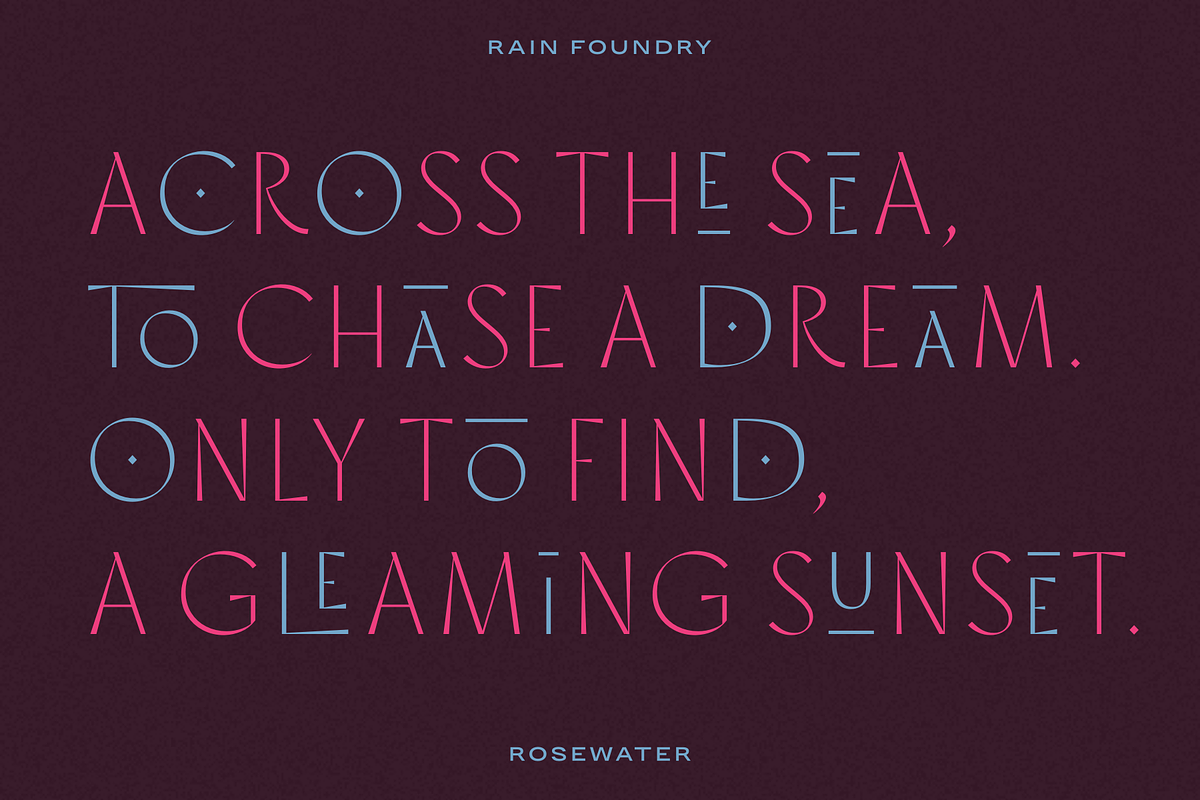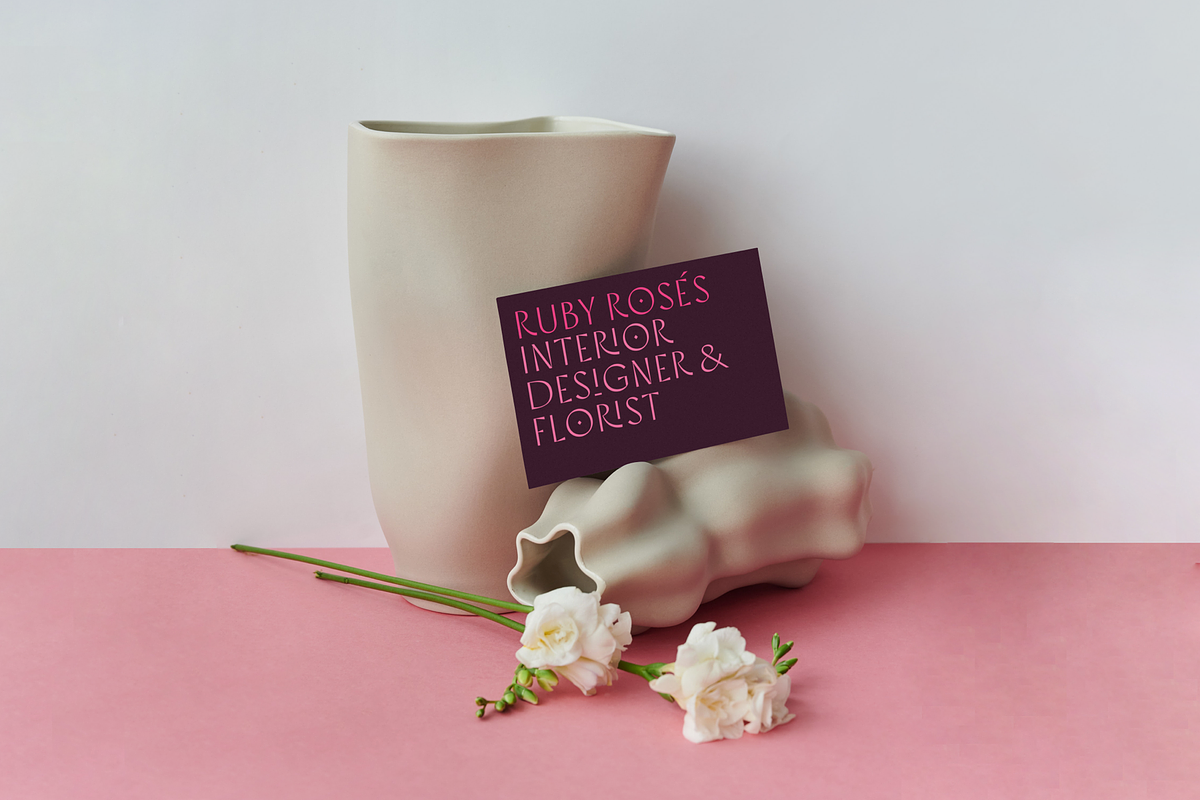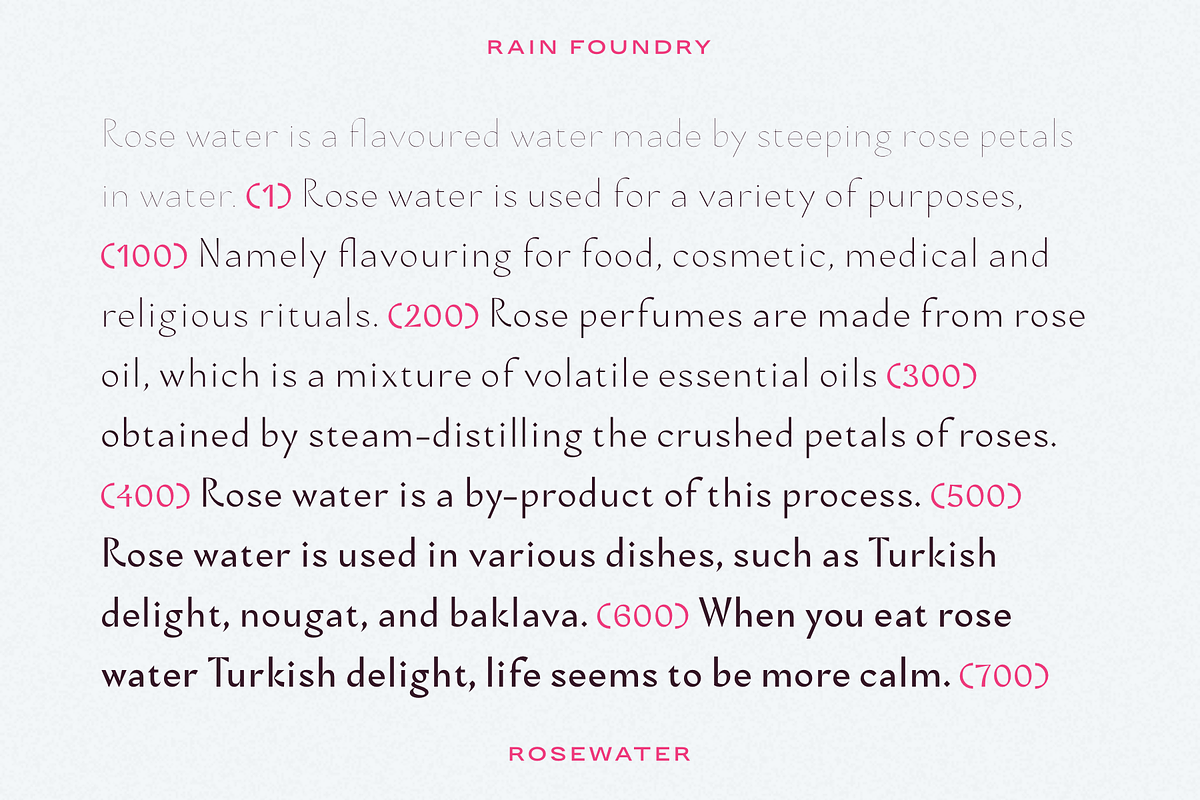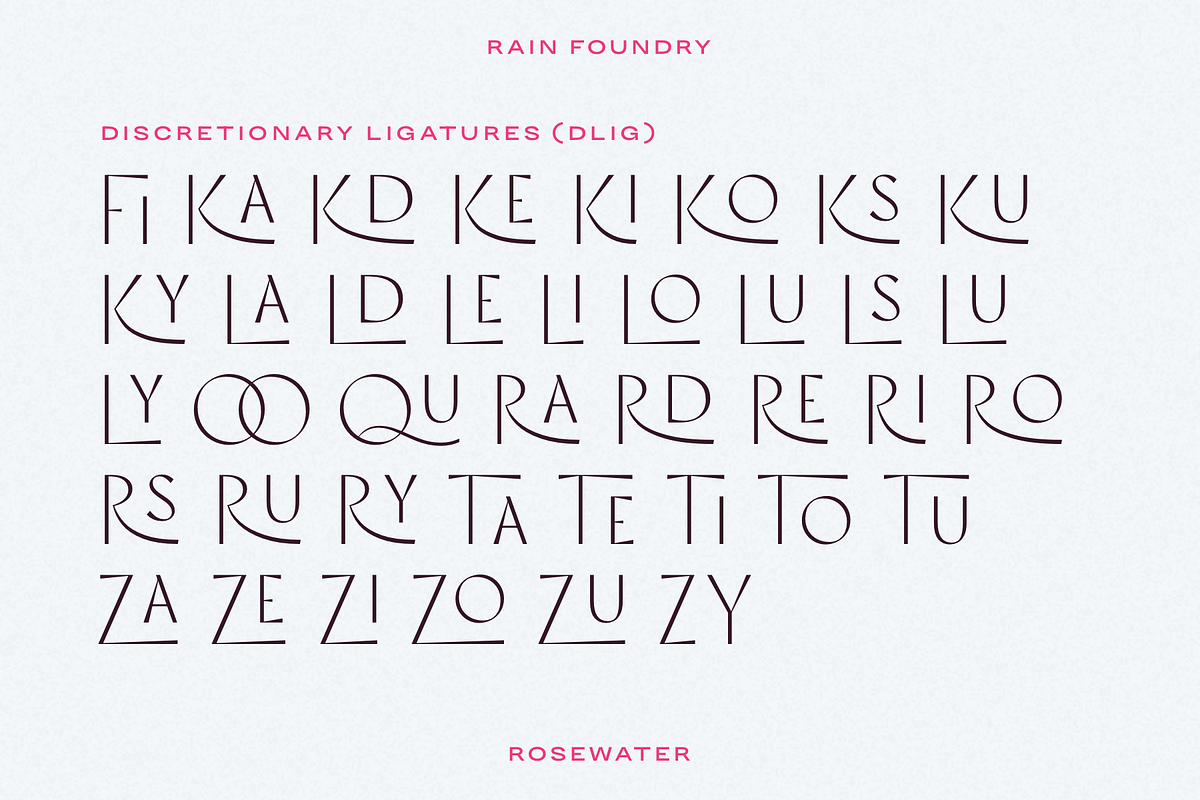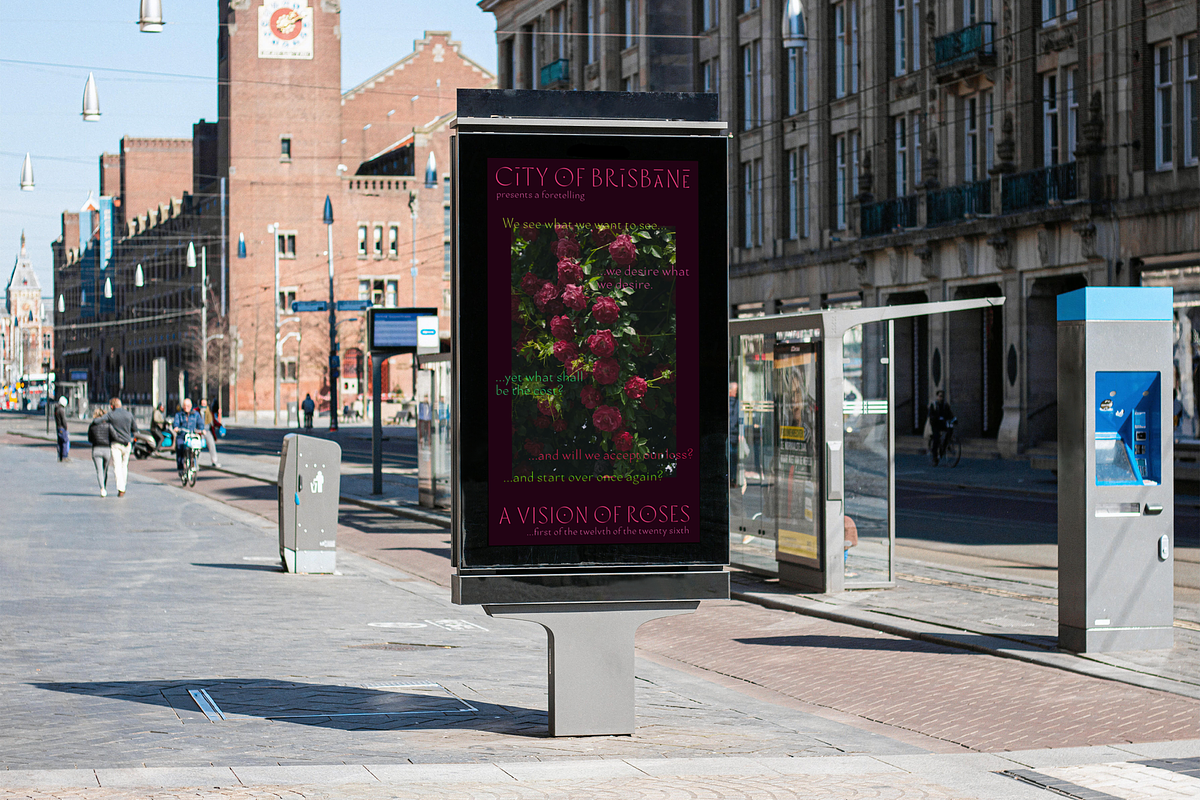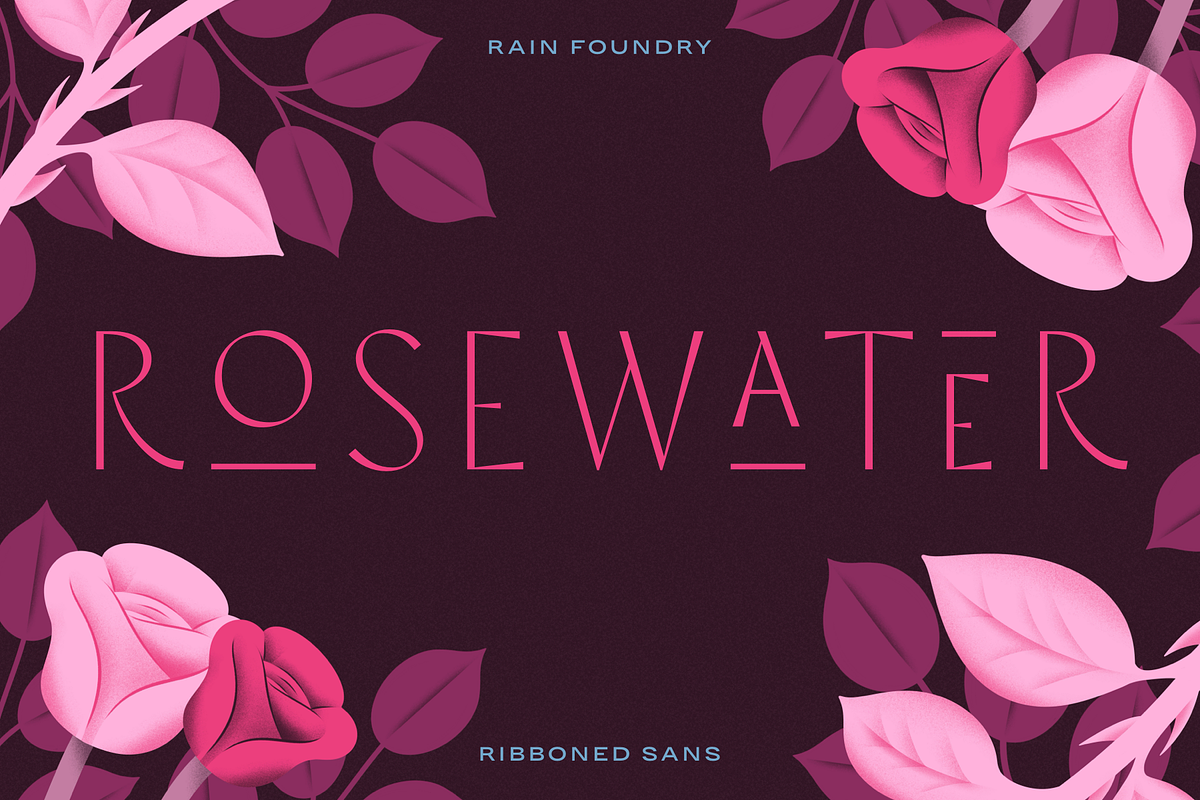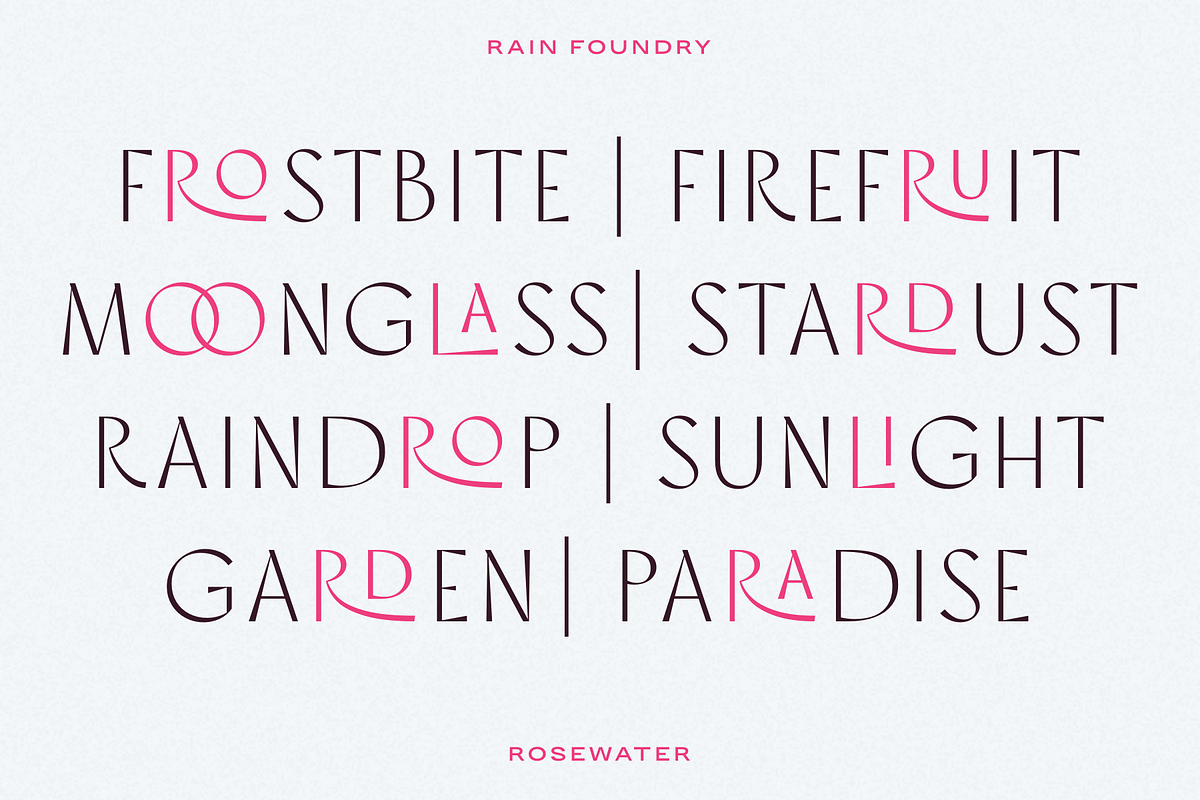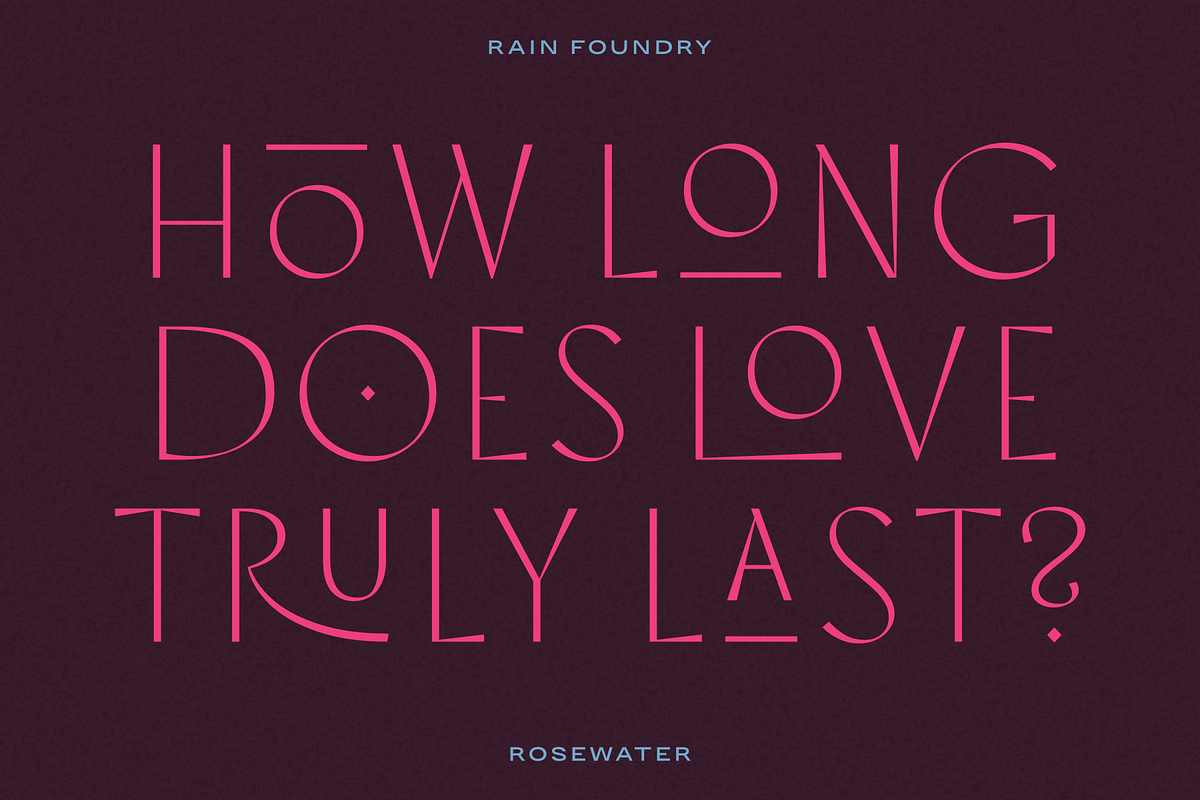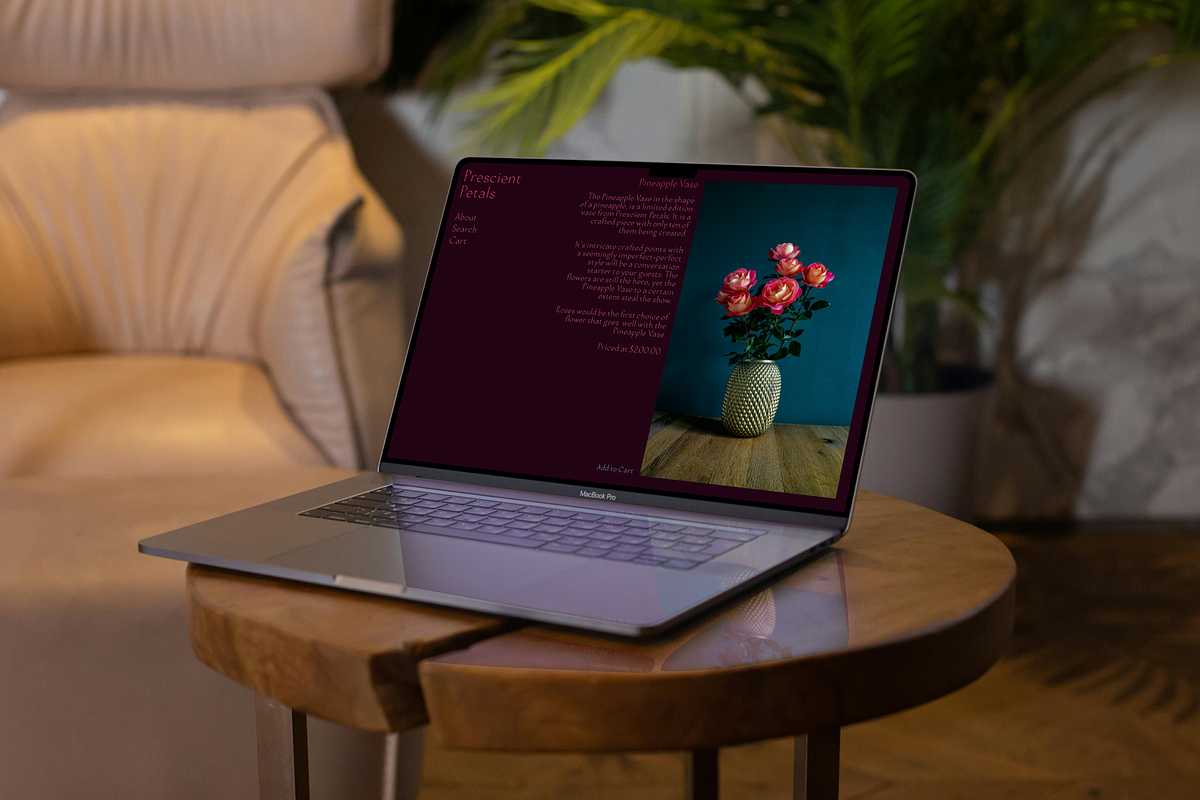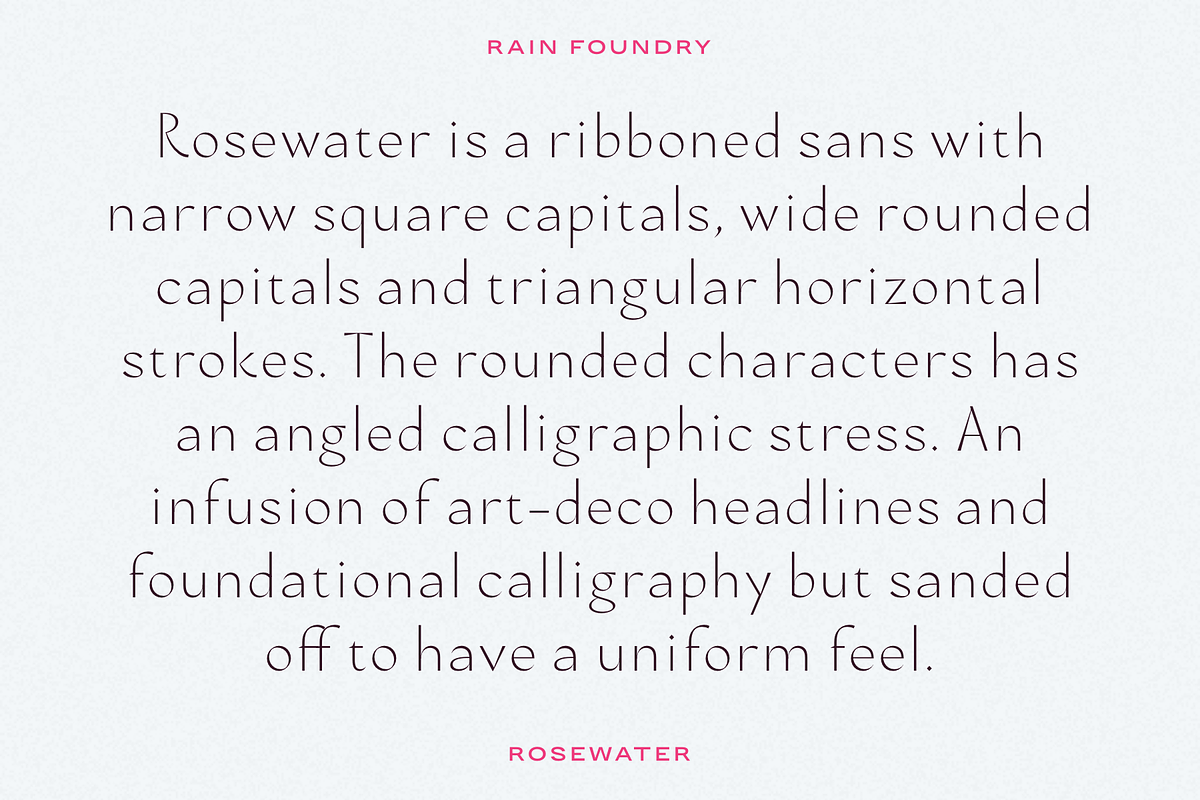
Rosewater (Variable)
Summary
Rosewater is a ribboned sans with narrow square capitals, wide rounded capitals and tinges of triangles for horizontal strokes. It also has an angled calligraphic stress for the rounded characters. An infusion of art-deco headlines and modern calligraphic inflections, but sanded off to have a uniform feel.
Weights
Extra Light to Bold (200–700) + Variable
OpenType Features
Small Caps (smcp)
Case Sensitive Forms (case)
Lining Figures (lnum)
Tablular Figures (tnum)
Fractions (frac)
Stylistic Sets (ss01, ss02, ss03)
Standard Ligatures (liga)
Discretionary Ligatures (dlig)
Stylistic Set 01 (ss01)
Alternate “O”, “Q”, “C”, “D”
Stylistic Set 02 (ss02)
Alternate “A”, “E”, “I”, “O”, “U”
Stylistic Set 03 (ss03)
Alternate “A”, “E”, “I”, “O”, “U”
Discretionary Ligatures (dlig)
“FI”, “KA”, “KD”, “KE”, “KI”, “KO”, “KS”, “KU”, “KY”, “LA”, “LD”, “LE”, “LI”, “LO”, “LU”, “LS”, “LU”, “LY”, “OO”, “QU”, “RA”, “RD”, “RE”, “RI”, “RO”, “RS”, “RU”, “RY”, “TA”, “TE”, “TI”, “TO”, “TU”, “ZA”, “ZE”, “ZI”, “ZO”, “ZU”, “ZY”.
Latin-S (Koberlin) + Vietnamese + Pinyin